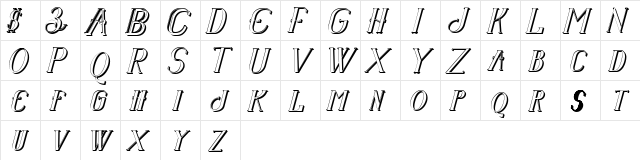
Senandung Malam 3D Bold Italic
Foundry: cenz qobbal
Designer: cenz qobbal
Design Context for Senandung Malam 3D
Senandung Malam 3D is a composed and adaptable typeface that performs quietly and consistently across a wide range of design contexts. The slanted form adds forward momentum and visual energy. Its bold stroke weight gives it real presence on the page.